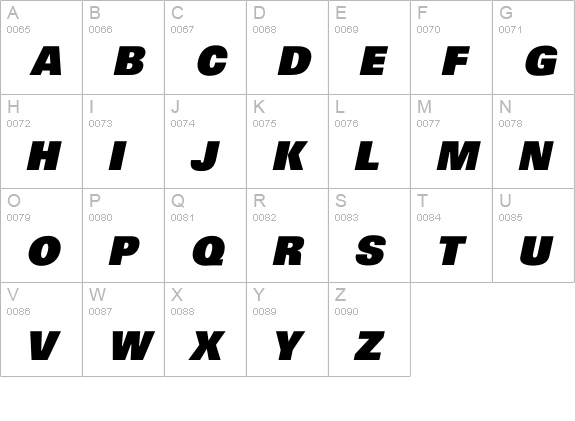
Iultimate Heavy is a heavy, high-impact variant in the Iultimate typeface family \xE2\x80\x94 well suited to high-impact headlines, posters, and display advertising.
Introducing Iultimate Heavy, a powerful and commanding font that exudes strength and boldness. With its thick and sturdy letterforms, this typeface is perfect for creating impactful headlines, eye-catching logos, and attention-grabbing designs. Iultimate Heavy is designed with meticulous attention to detail, ensuring every curve and line is perfectly balanced. Its strong presence on the page demands attention and leaves a lasting impression. Whether used for print or digital projects, this font is sure to make a statement. What sets Iultimate Heavy apart is its versatility. It can seamlessly transition from modern and edgy designs to classic and timeless layouts, making it a truly versatile choice for any project. Its bold and robust nature is complemented by its clean and legible letterforms, ensuring maximum readability in any size. The best part? Iultimate Heavy is completely free! That's right, this powerful font is freely available to download at FontsMarket.com. Now you can enhance your designs with this remarkable font without breaking the bank. It's a great opportunity to add a touch of sophistication and strength to your creative endeavors without any cost. So go ahead, unleash the power of Iultimate Heavy and take your designs to the next level. Download it today at FontsMarket.com and experience the freedom of creativity with this exceptional font.